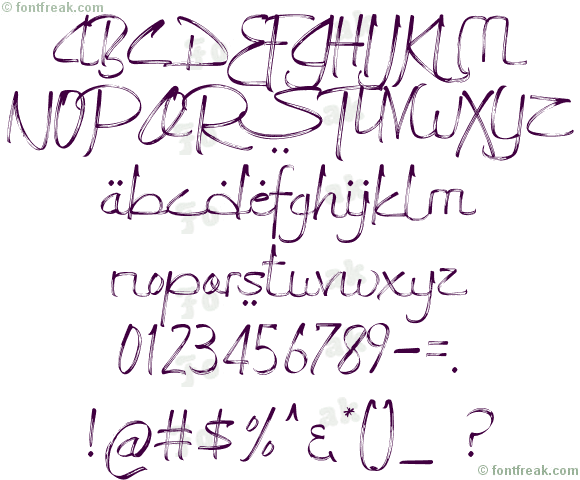
RamadhanStuff-Regular
About RamadhanStuff-Regular
RamadhanStuff-Regular by 50Fox Studio is a unique decorative font that captures the spirit and essence of the Ramadan season. With its playful and flowing lines, this font falls into the script category, making it ideal for projects that aim to convey warmth and festivity. The strokes exhibit a medium weight with slight variations that add character without compromising readability. The spacing is well-balanced, allowing for a harmonious flow of text, while the decorative elements evoke a sense of cultural richness, making it visually appealing.
This font excels in various use cases. It is perfect for designing eye-catching wedding invitations that celebrate love during the holy month, as well as for creating festive greeting cards that convey heartfelt messages. Additionally, RamadhanStuff-Regular is well-suited for restaurant menus, especially those featuring special Ramadan offerings, providing a unique touch that resonates with diners. Content creators can utilize this font for social media graphics, enhancing posts related to Ramadan themes, and graphic designers can incorporate it into promotional materials for events during the holy month.
The target audience for this font includes graphic designers looking for a distinctive typeface, small business owners wanting to elevate their marketing materials, and content creators who wish to engage their audience with culturally relevant designs.